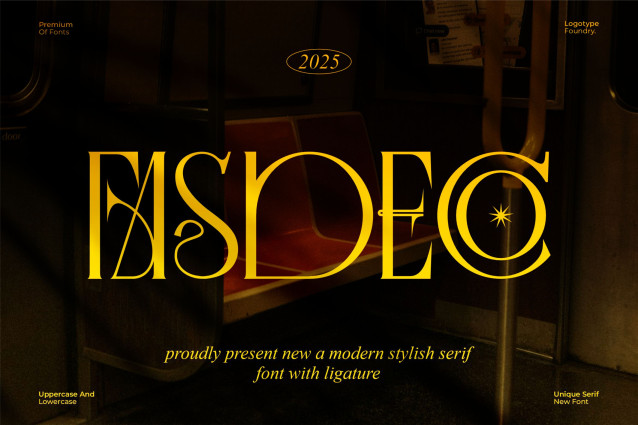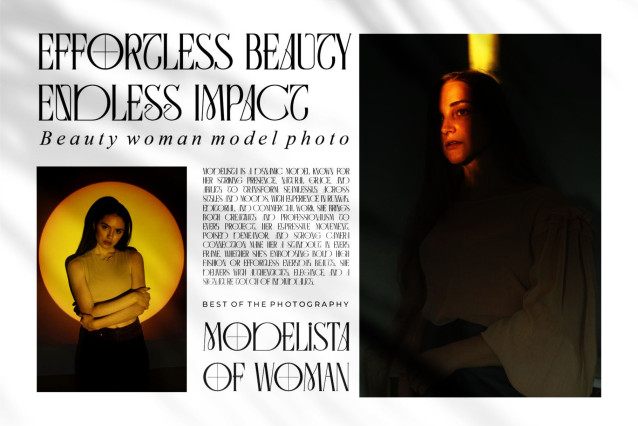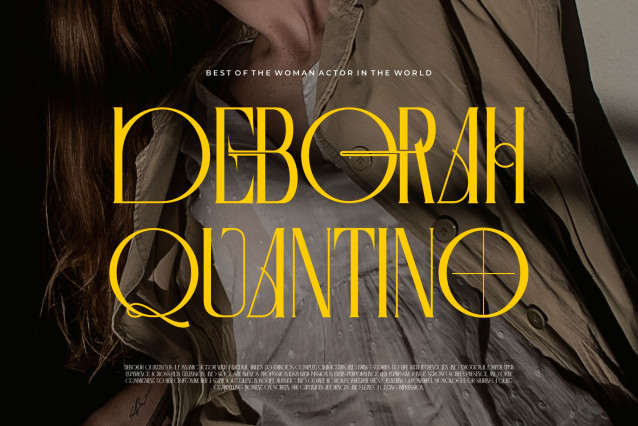
Fasdeco Font
Fasdeco Font is modern serif font, trendy, elegant and stylish font. It has a unique character. It is perfect to be combined with invitation card designs, company logos, movie titles, movie names, business cards, book titles, brand names and various other designs.